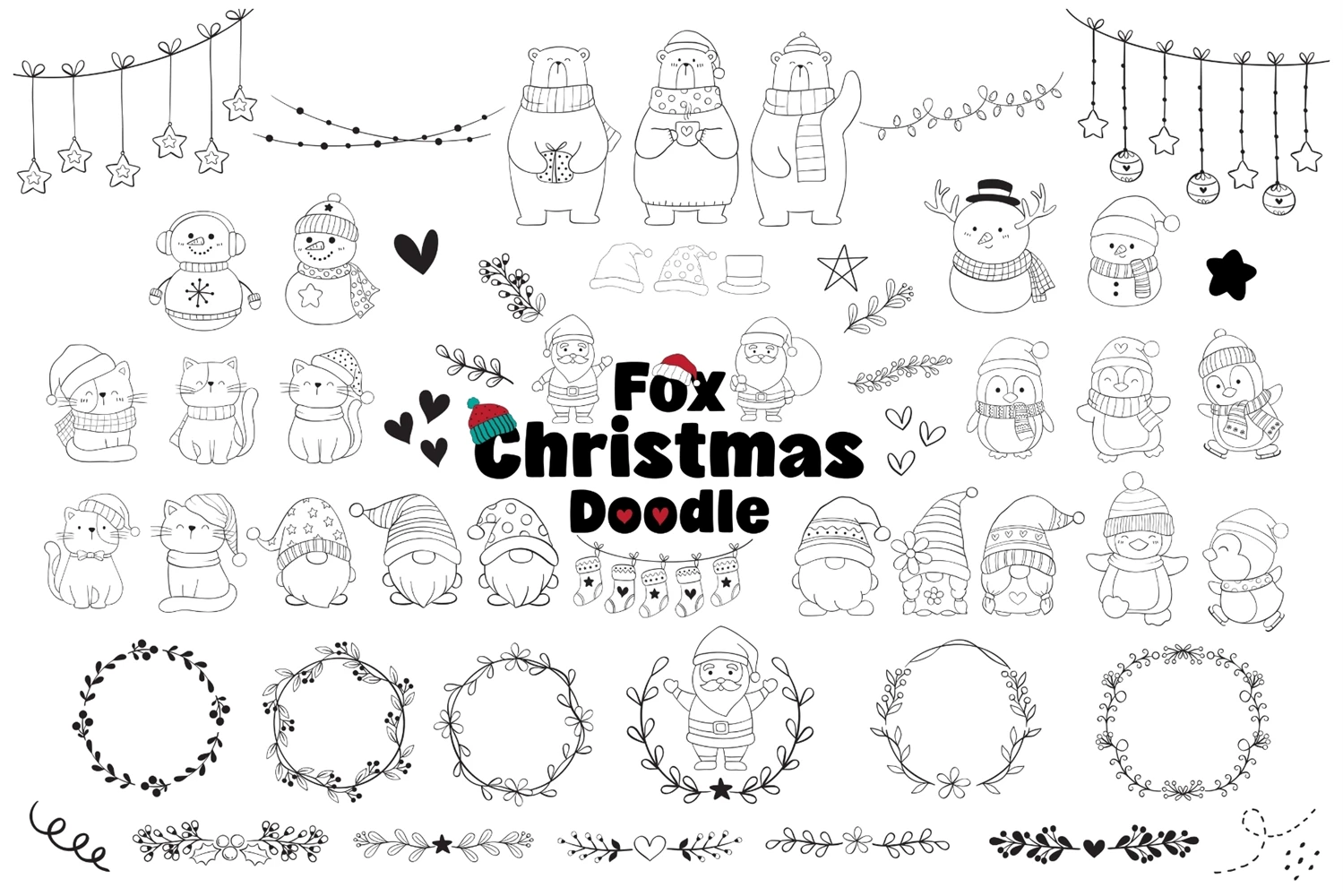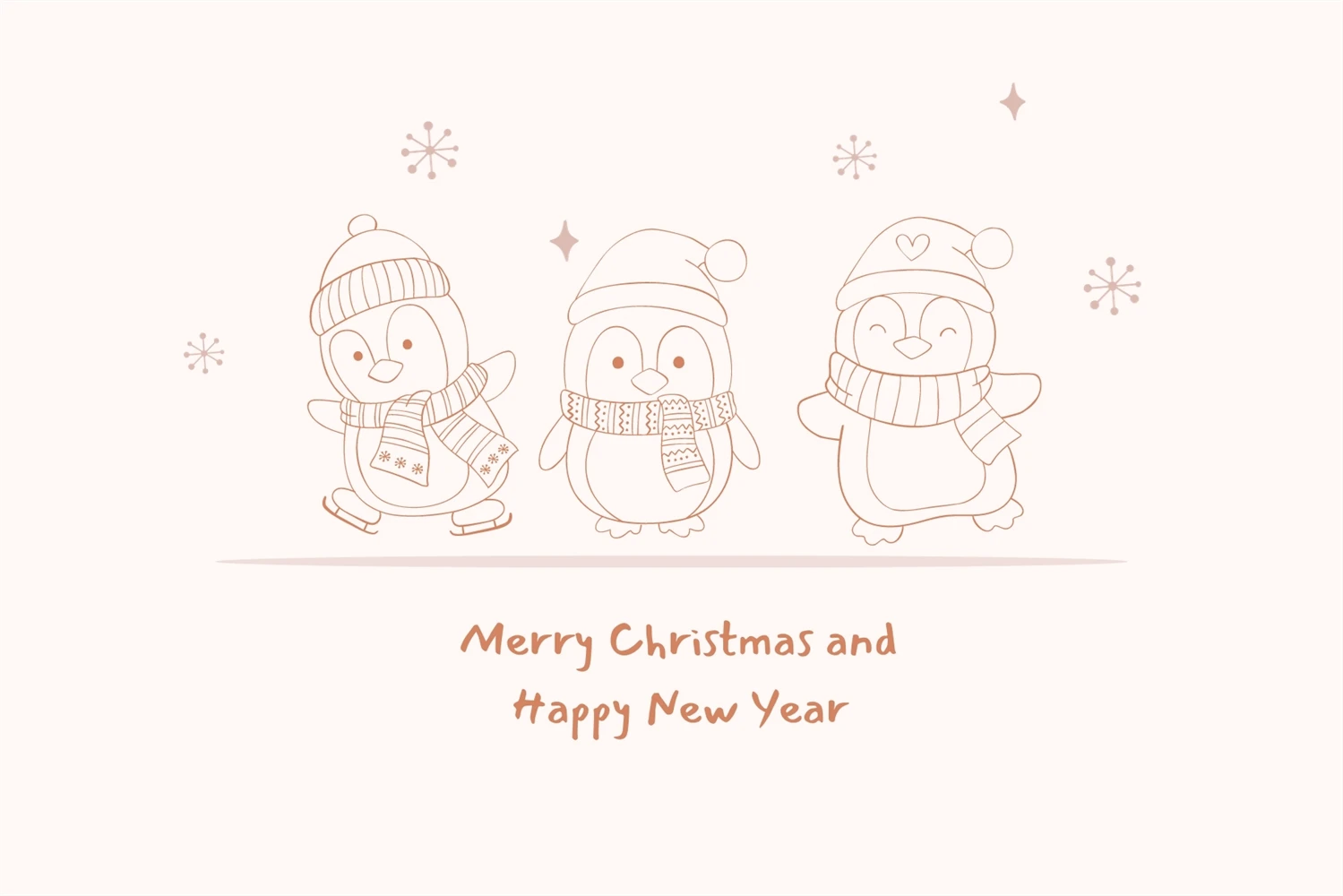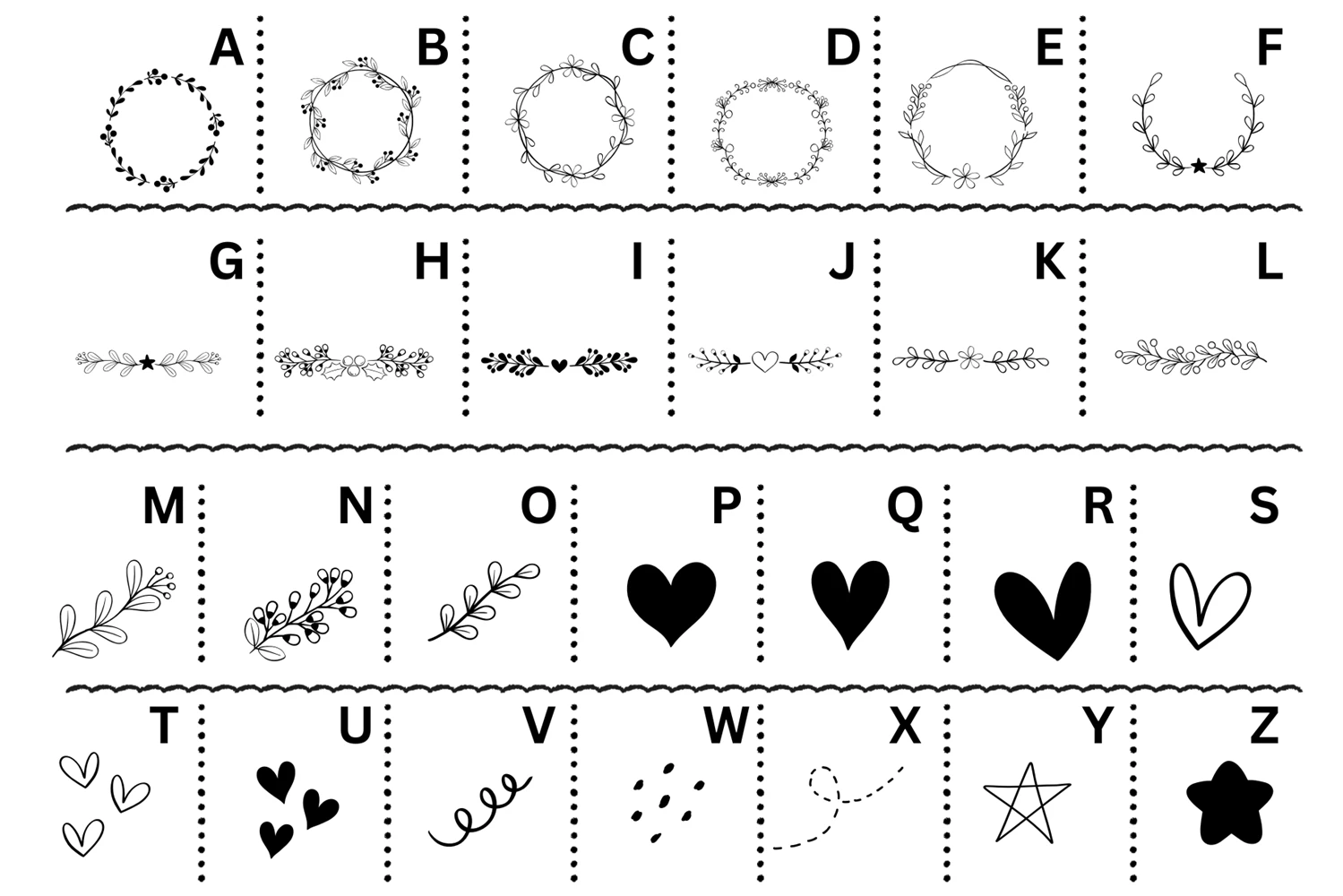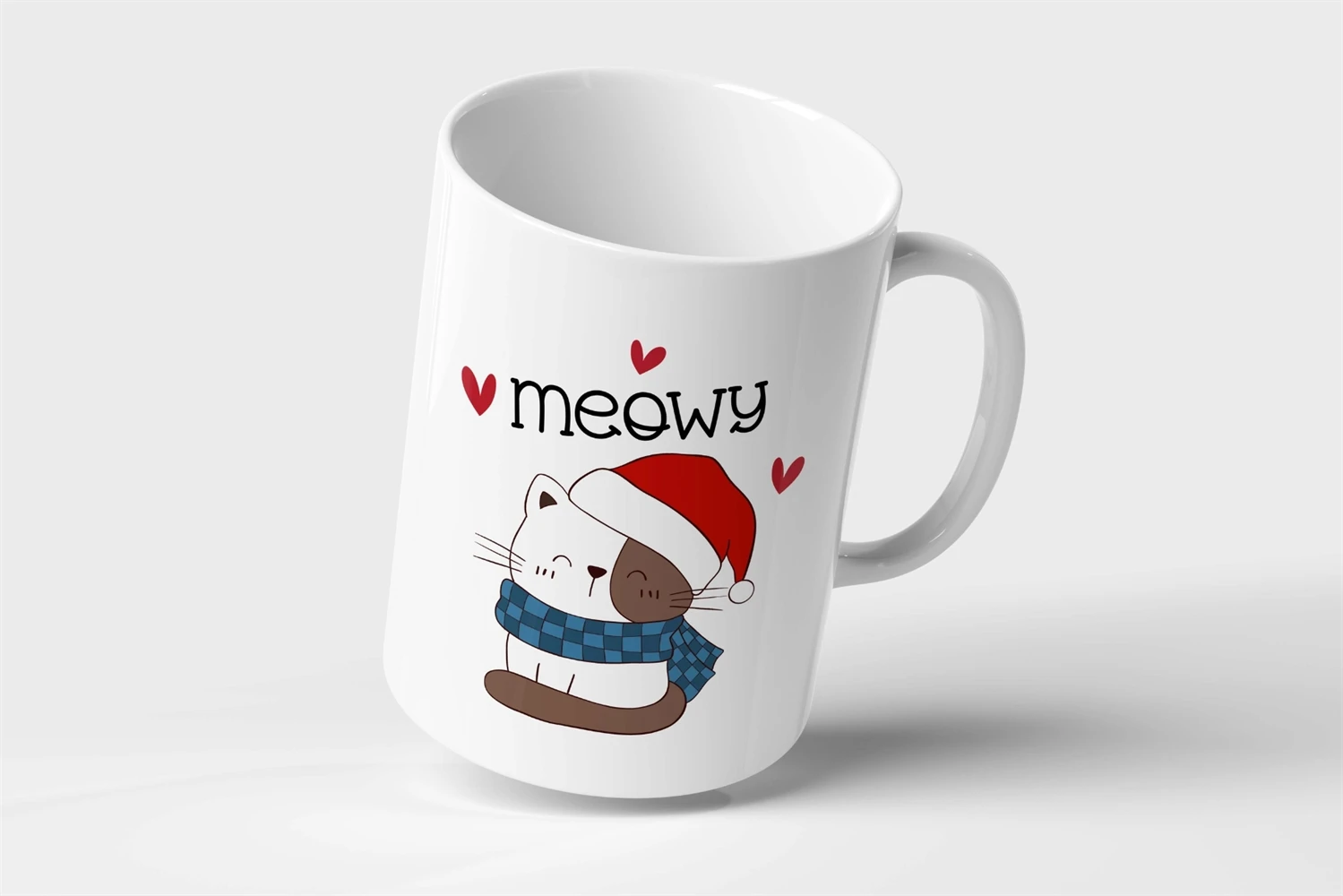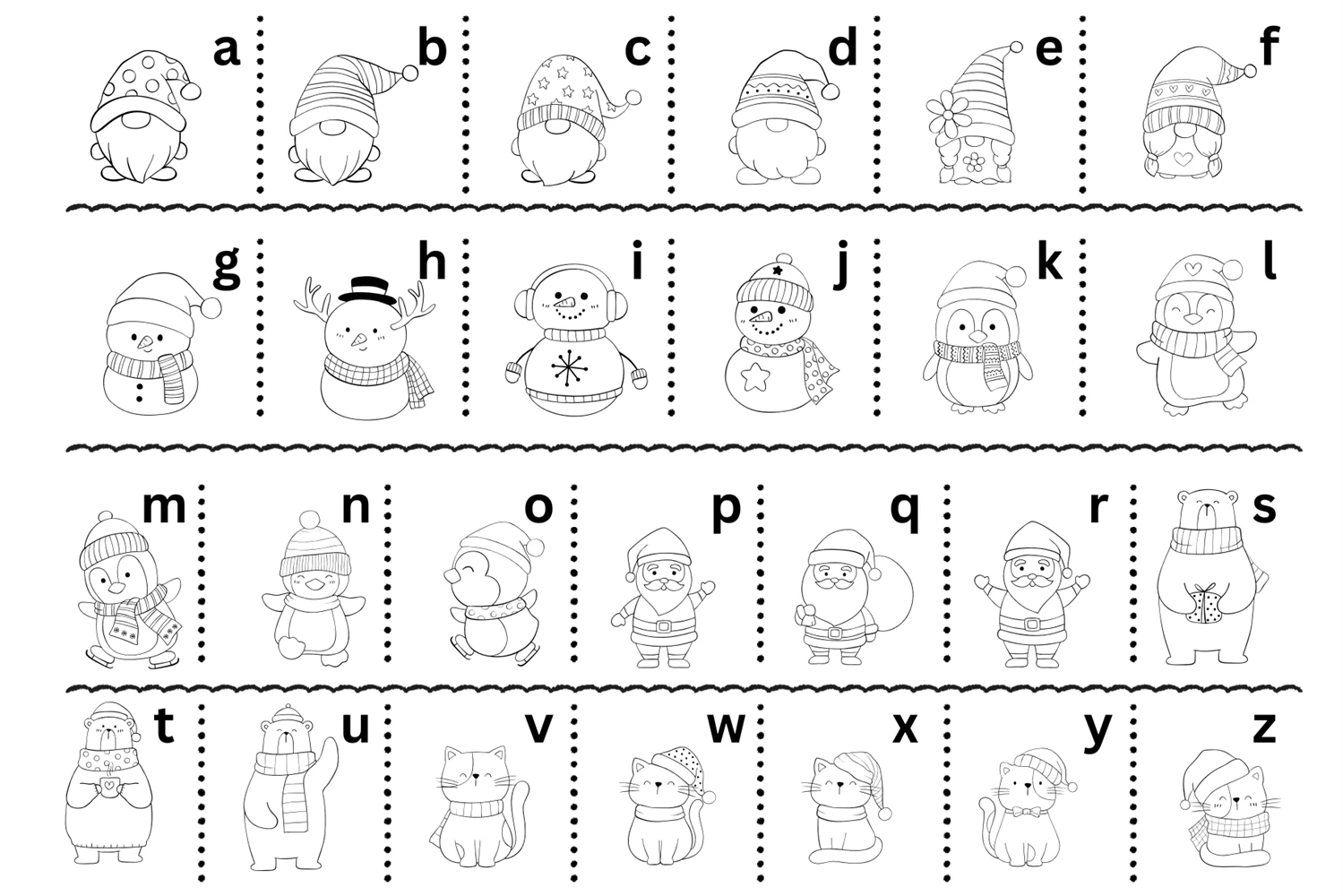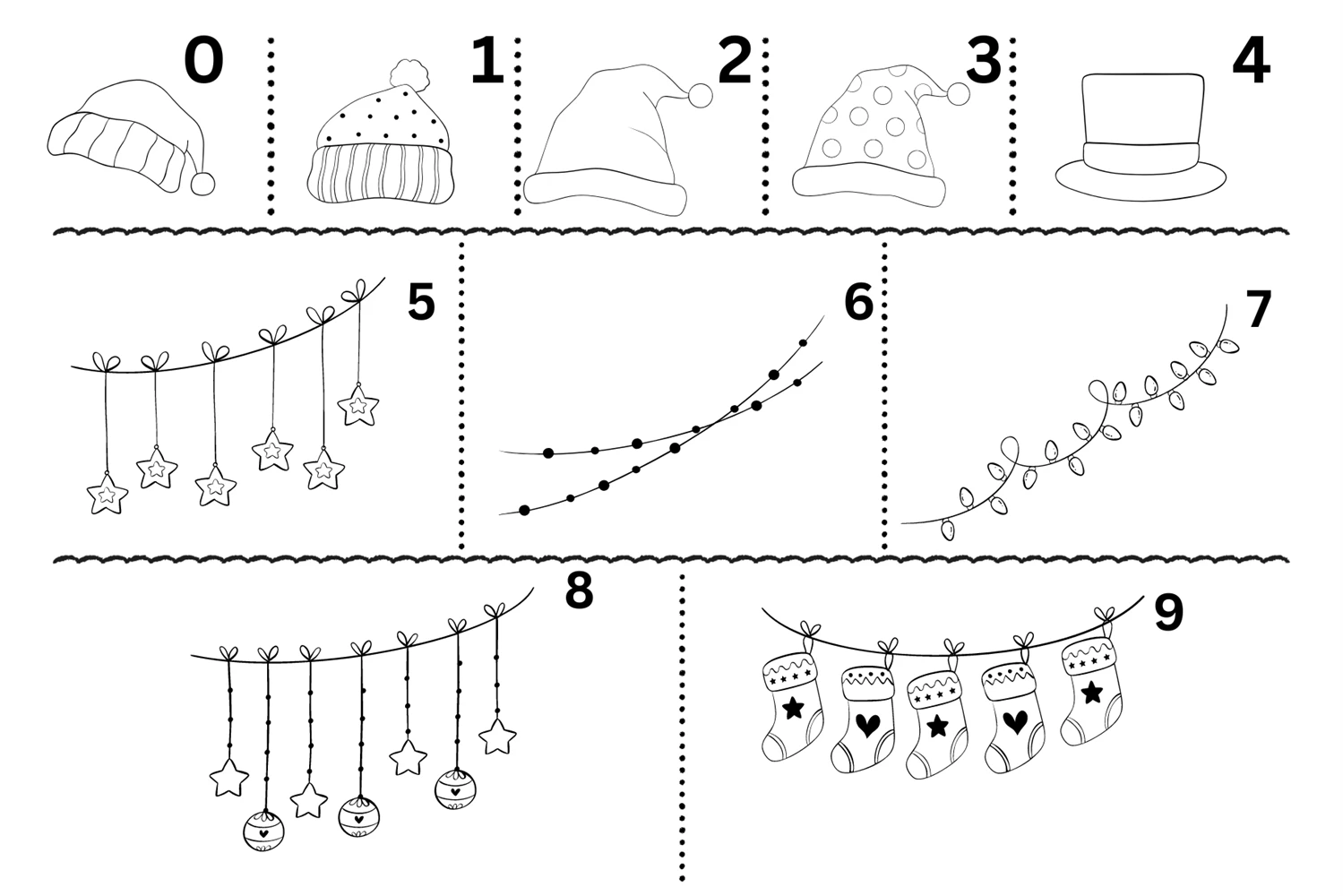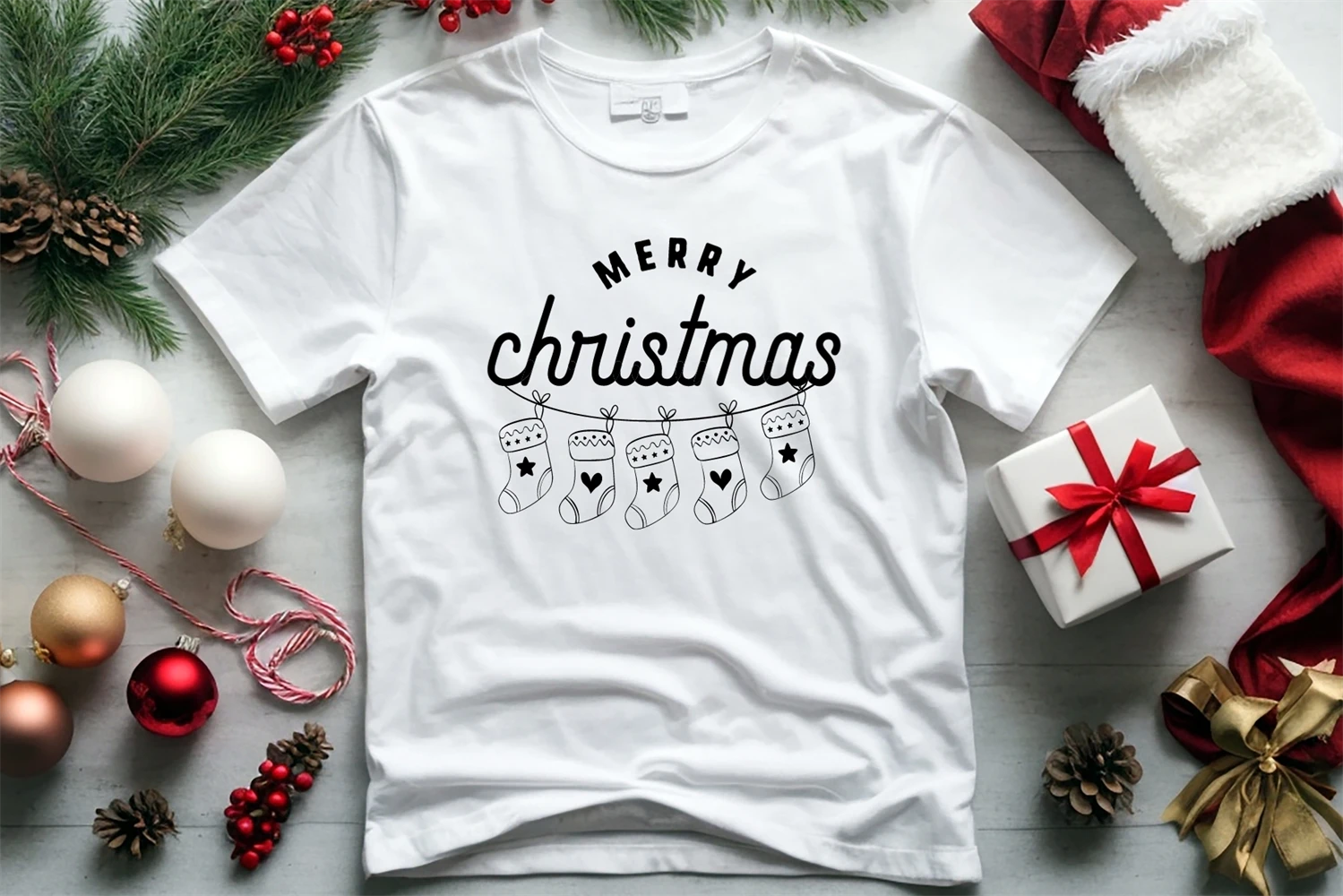
Fox Christmas Doodle is a cute dingbat font specially designed for the Xmas season, Its versatility makes it great for a wide pool of craft projects, designs, planners, diaries, activity books, or anything that your heart desires. Add this beautiful doodle dingbat font to each of your creative ideas, and notice how it makes them stand out.